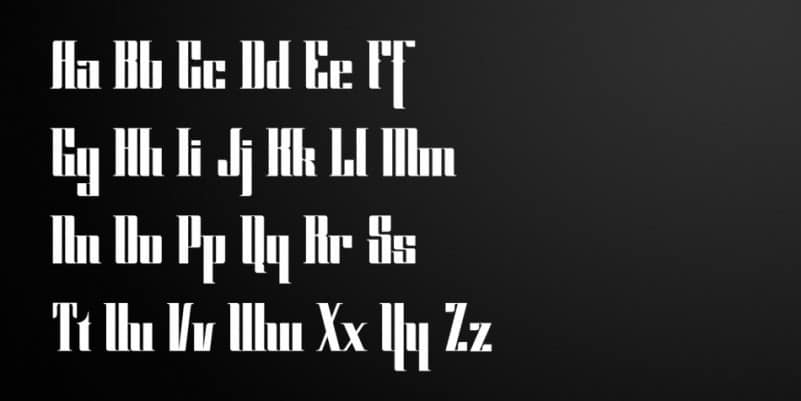
Cyber Gothic Display Font
Cyber Gothic Display Font is a brand new stylized block typeface that features slanted serifs at a consistent angle. Made from font designer named AZetype. An aggresive typeface, through the harsh rhythm of heavy lines and thin serifs,plus narrow letterspacing.
This font has been made by writing with a 3mm calligraphy pen tip, trying to immitate a gothic style of writing out letters, but tilted all the way horizontally, instead of the normal 45° angle. By that rule alone, many decorative and intricate elements of the typeface had to be reduced to increase legibility. Then, the resulting letters were further geometrized in the vectorization process. A very stern, square-angled typeface is the result.